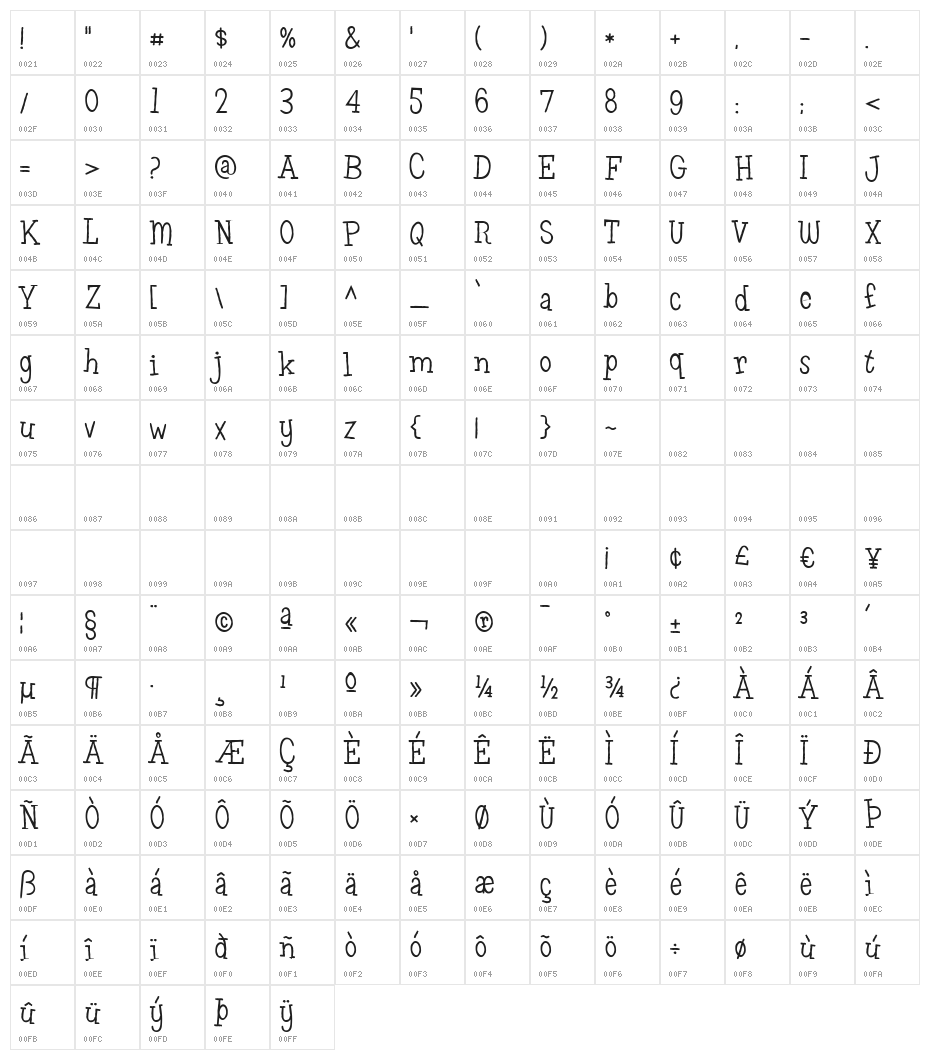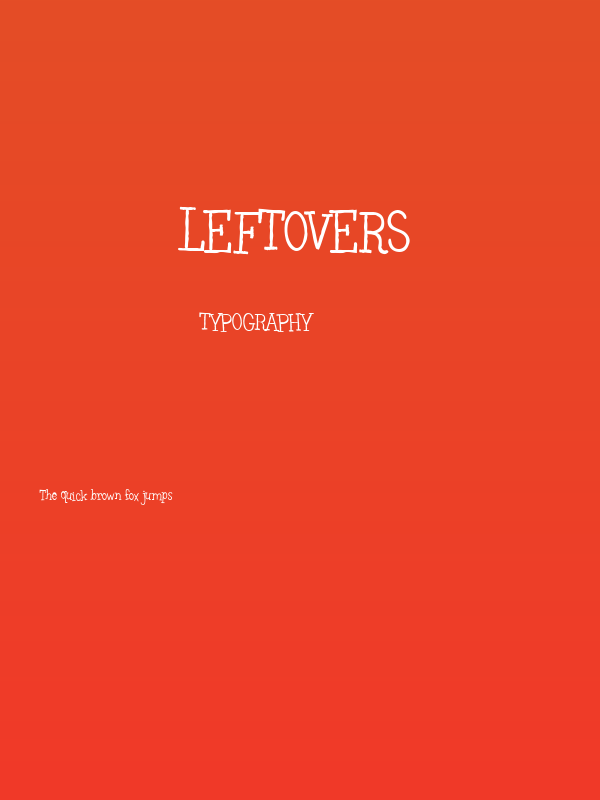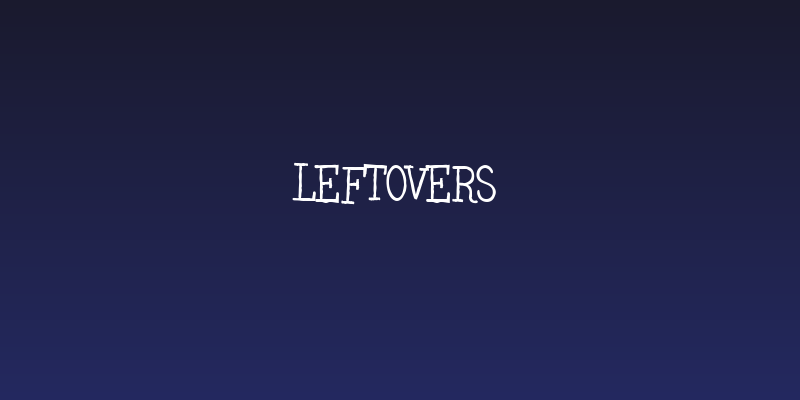
Leftovers Font
Leftovers Description
This font features a playful and quirky handwritten style, characterized by uneven strokes and a casual, informal appearance. The letters have a slightly irregular baseline, adding to the whimsical feel. The uppercase and lowercase letters maintain a consistent style, with rounded edges and a friendly demeanor. Numbers and special characters follow the same playful aesthetic, making this font suitable for creative and fun projects. The overall design is approachable and lively, perfect for conveying a sense of humor or lightheartedness.
Use CaseHeadlines, Logos, Informal Text
Proposed ProjectsIdeal for children's books, greeting cards, playful branding, and casual invitations.